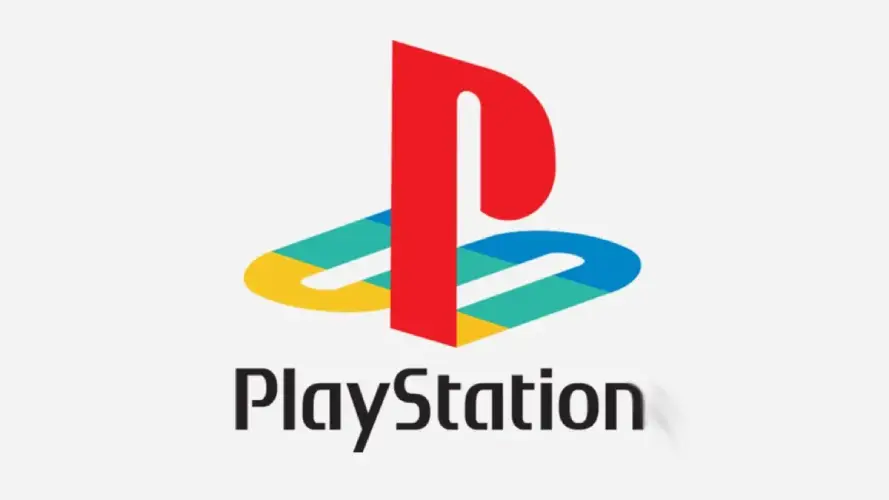
About Playstation Font
Let’s talk about Playstation Font. The PlayStation brand is is widely recognized all around the world. PlayStation is a line of video game consoles created and developed by Sony Interactive Entertainment. The original PlayStation console was released in 1994 and has since been followed by several others, including PlayStation 2, PlayStation 3, PlayStation 4, and PlayStation 5. We found 3 font matching the playstation logo and they are Zrnic, PS Bold, and PS old font. Let’s talk about them and the playstaion now.
The PlayStation consoles have been highly popular and influential in the video game industry, with innovative features such as the DualShock controller and the PlayStation Network. The PlayStation logo, which features the letters “PS” seamlessly incorporated into a 3D design, was created by Manabu Sakamoto, a graphic designer at Sony. The logo has undergone several redesigns over the years, with each iteration reflecting the brand’s innovative spirit.
Zrnic Font
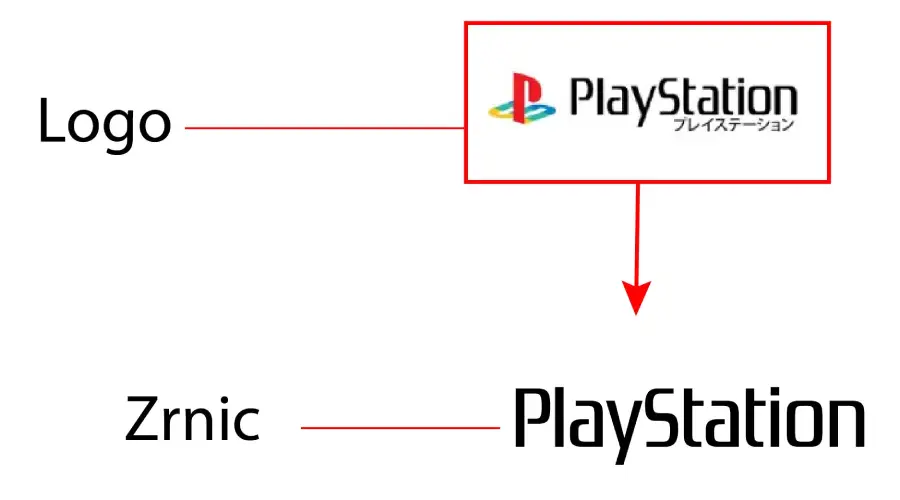
Playstation font is a custom design. But we found a similar font to Playstation logo named Zrnic font. It was designed by Ray Larabie and published by Typodermic Font. This font is a boxy, futuristic typeface. Boxy, plastic letterforms are interspersed with gaps to reduce overall weight. This font is free for personal use only. So you can download it now and start using it right away.
PS Bold
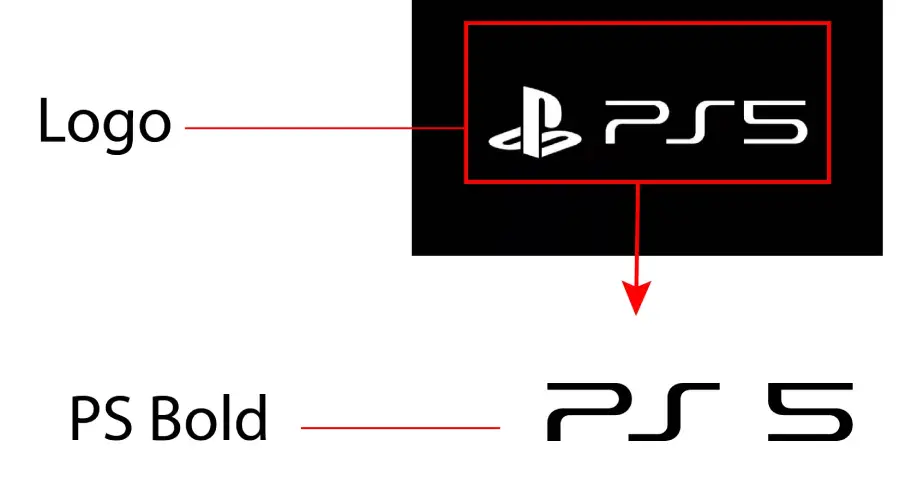
PS Old
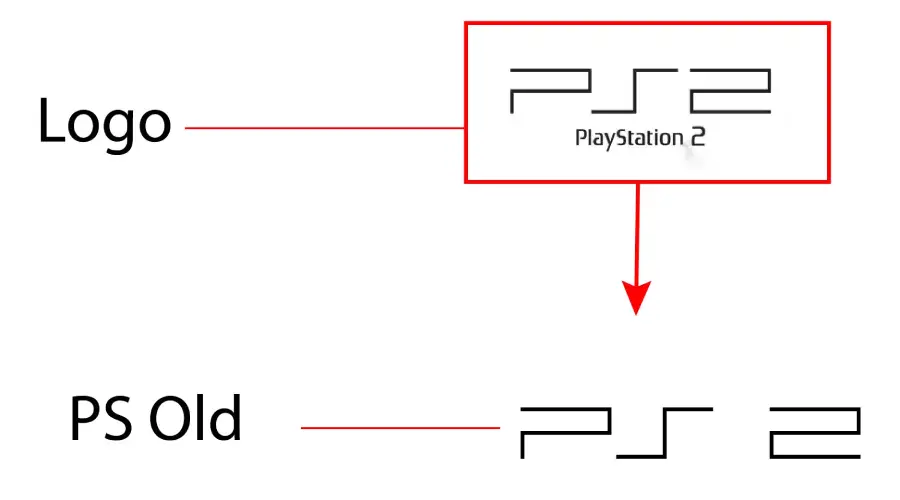
In short, PlayStation brand is a line of video game consoles by Sony. The font used on the logo is similar to Zrnic font, a boxy and futuristic typeface. And there are two other fonts for different variants for different PlayStation models logo.